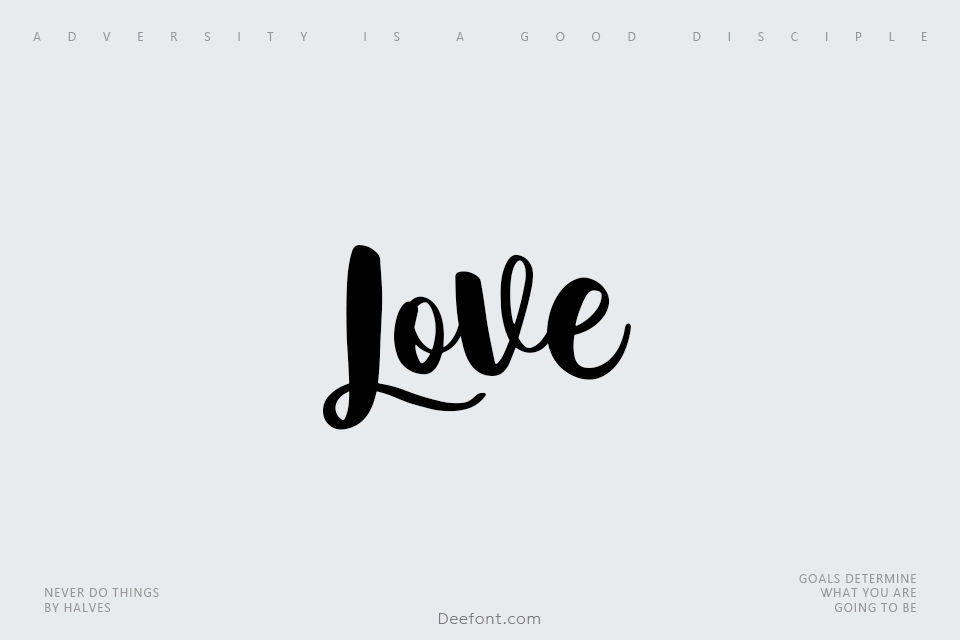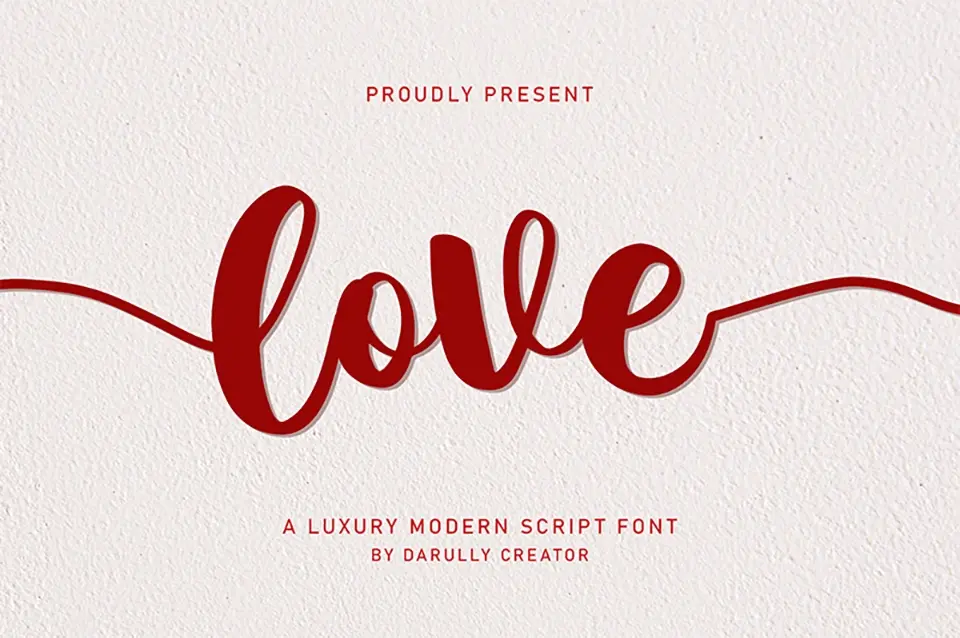
Love Script Font
The Love font is a bold luxury modern script typeface designed with elegant calligraphy elements and balanced graphics. This versatile display font features smooth, romantic strokes perfect for creative projects, wedding invitations, and typography work. The font combines contemporary aesthetics with refined letterforms, making it an excellent choice for designers seeking sophisticated and expressive text solutions. With its distinctive script styling and professional quality, Love delivers charm and elegance to any creative endeavor.